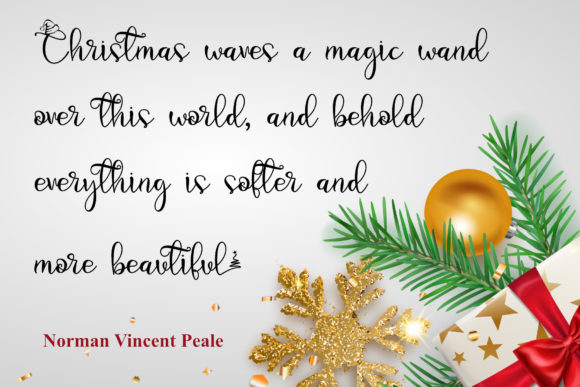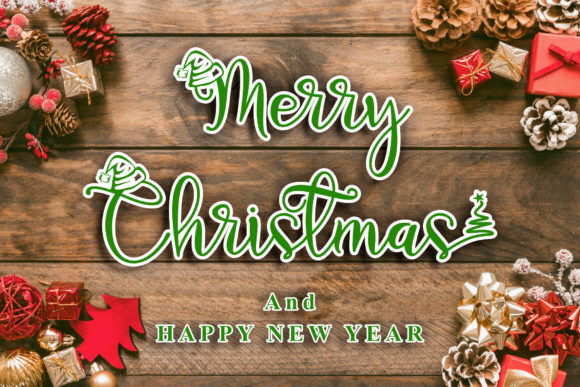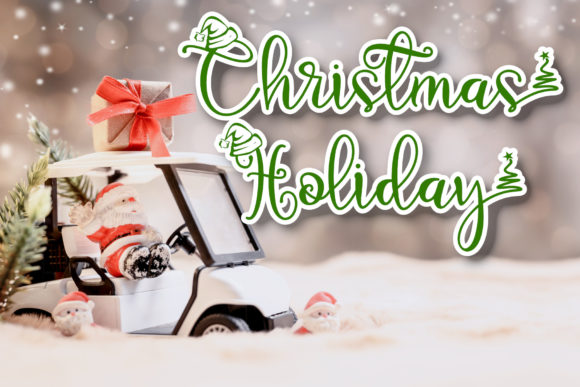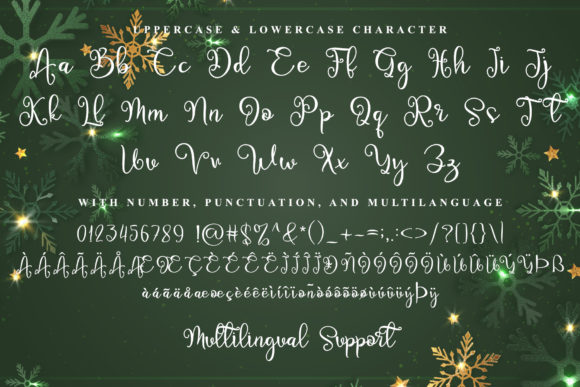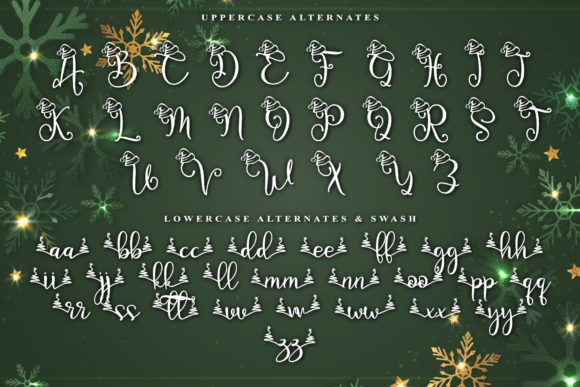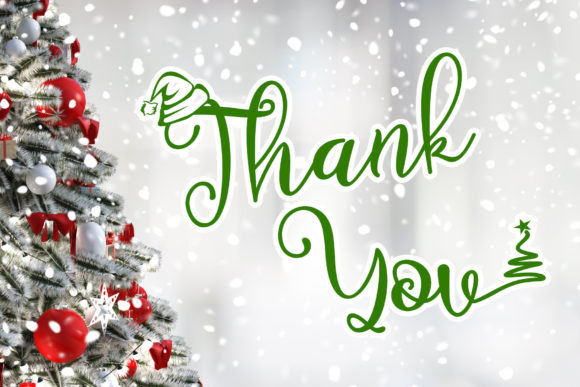
Deck the Halls with Christmas Fancy Font: A Festive Addition to Your Design Collection
As the holiday season approaches, designers and crafters are on the lookout for the perfect typography to add a touch of magic to their creations. Look no further than Christmas Fancy Font, a charming script font that’s sure to make your projects stand out. In this article, we’ll dive into the features and benefits of Christmas Fancy, and explore how you can make the most of this lovely font in your designs.
What is Christmas Fancy Font?
Christmas Fancy is a beautiful script font that’s specifically designed to capture the essence of the holiday season. With its elegant, cursive lines and charming little festive accents, this font is perfect for adding a touch of sophistication and whimsy to your designs. Whether you’re creating holiday cards, gift tags, or social media graphics, Christmas Fancy is sure to make your projects shine.
Key Features of Christmas Fancy Font
- Charming festive accents: Christmas Fancy features a range of delightful festive accents, including holly leaves, snowflakes, and bells, that add a playful touch to your designs.
- PUA encoded: This font is PUA (Private Use Area) encoded, which means you can access all of the glyphs and swashes with ease. This makes it simple to customize your designs and experiment with different combinations of letters and symbols.
- Elegant script style: Christmas Fancy has a beautiful, flowing script style that’s perfect for creating eye-catching headlines and titles.
How to Use Christmas Fancy Font in Your Designs
Christmas Fancy is a versatile font that can be used in a wide range of design projects, from digital graphics to print materials. Here are a few ideas to get you started:
- Holiday cards and invitations: Use Christmas Fancy to create beautiful, personalized holiday cards and invitations that will make your loved ones feel special.
- Gift tags and wrapping paper: Add a touch of elegance to your gift tags and wrapping paper with Christmas Fancy’s charming script style and festive accents.
- Social media graphics: Use Christmas Fancy to create eye-catching social media graphics that will help you stand out during the holiday season.
- Digital planners and journals: Add a festive touch to your digital planners and journals with Christmas Fancy’s beautiful script style and glyphs.
Tips for Getting the Most Out of Christmas Fancy Font
To make the most of Christmas Fancy, here are a few tips to keep in mind:
- Experiment with different glyphs and swashes: With Christmas Fancy’s PUA encoding, you can easily access a range of glyphs and swashes to customize your designs.
- Mix and match with other fonts: Try pairing Christmas Fancy with other fonts to create a unique and eye-catching combination.
- Use it sparingly: While Christmas Fancy is a beautiful font, it’s best used sparingly to avoid overwhelming your design. Try using it for headlines or titles, and a simpler font for body text.
Christmas Fancy Font is a lovely addition to any design collection, offering a charming script style and festive accents that are sure to make your projects stand out. With its PUA encoding and elegant design, this font is perfect for designers and crafters looking to add a touch of magic to their creations. Whether you’re creating holiday cards, gift tags, or social media graphics, Christmas Fancy is the perfect choice for adding a festive touch to your designs.